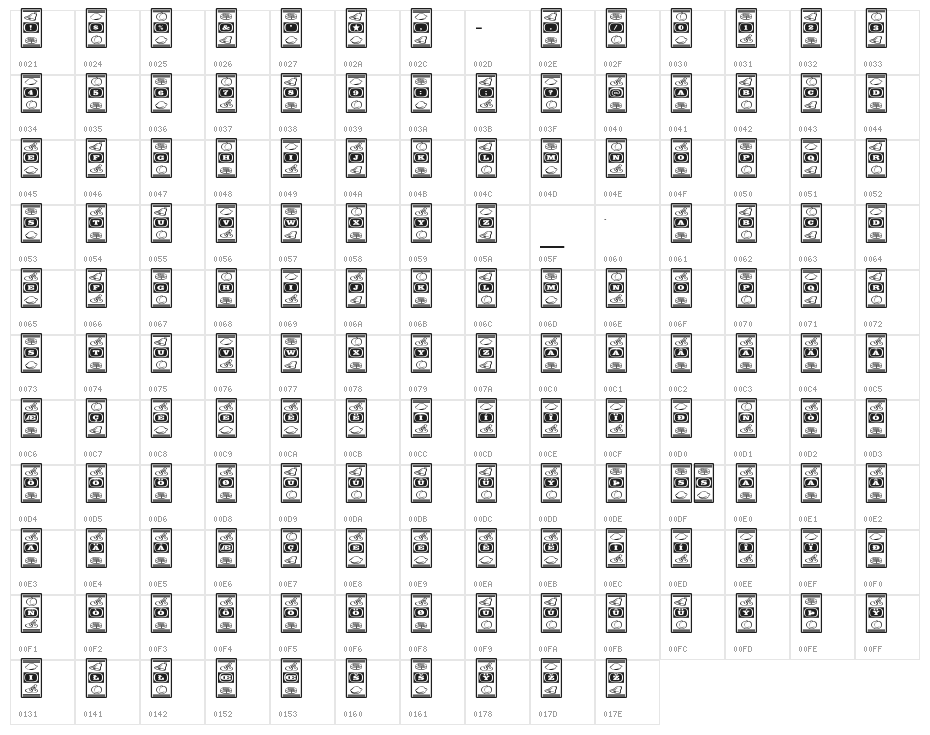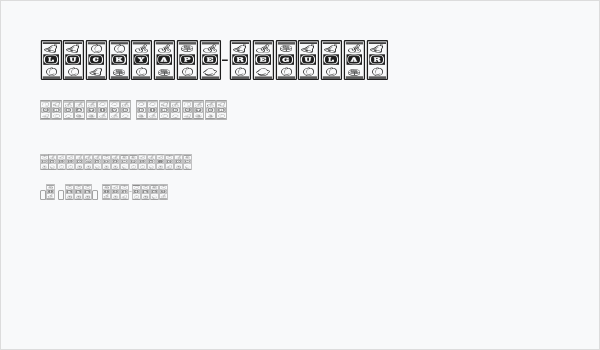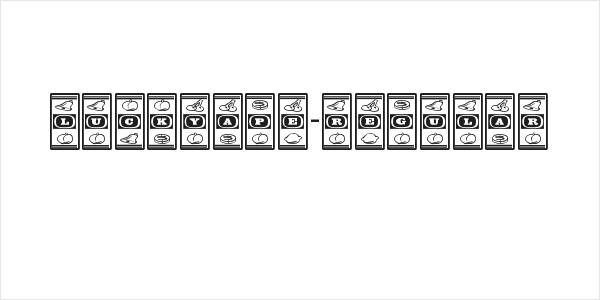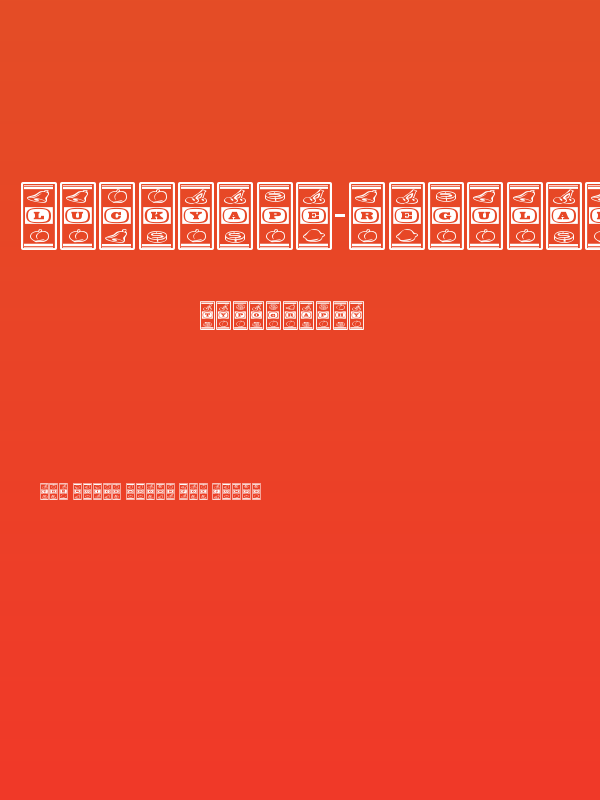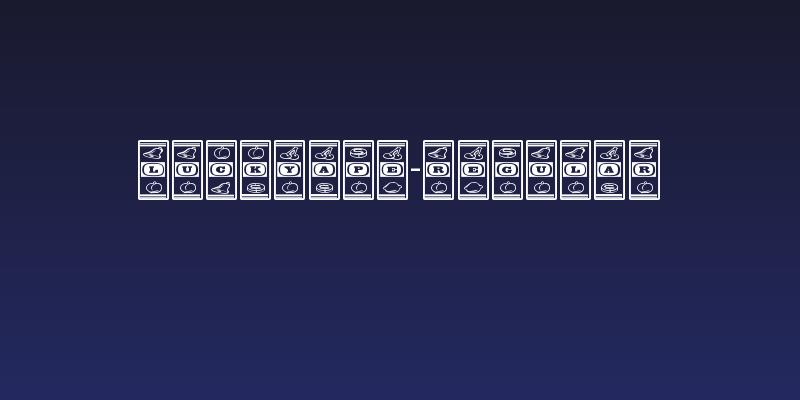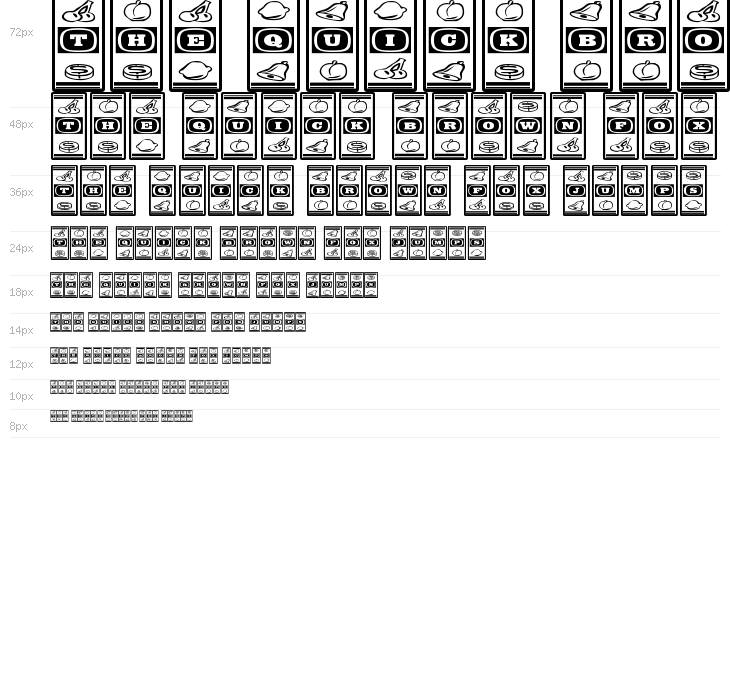
LuckyApe-Regular Font
LuckyApe-Regular Description
This font features a playful and decorative style, incorporating elements of slot machine imagery with each character. The letters and numbers are encased in rectangular frames, each adorned with symbols like cherries, lemons, and bells, reminiscent of classic slot machine reels. The characters are bold and prominent, ensuring high visibility and a fun, engaging aesthetic. This unique design blends typography with graphic elements, making it ideal for projects that require a touch of whimsy and nostalgia.
| Proposed Projects | Ideal for casino-themed events, playful branding, game design, and novelty posters. |